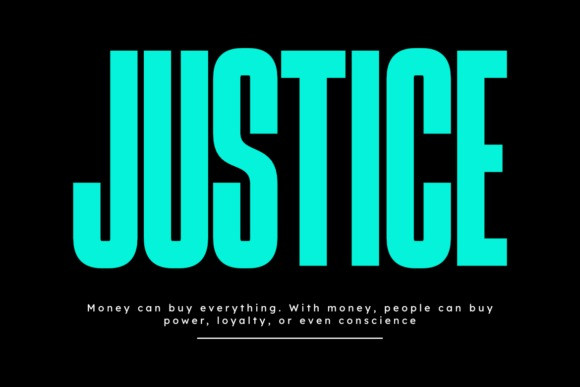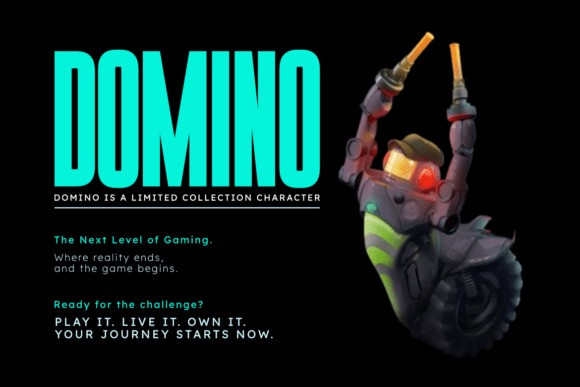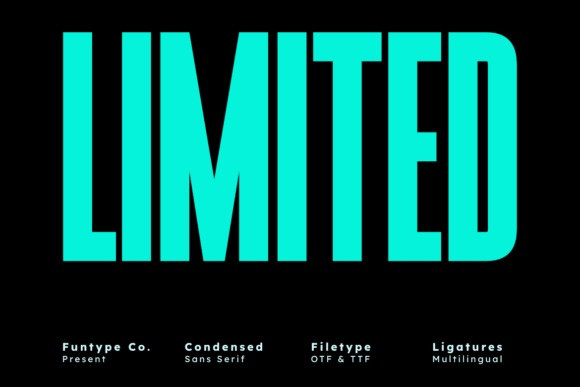
Limited Font
Limited Font is a bold and ultra-condensed sans serif font designed for impactful typography. With its tall structure and compact width, this font is perfect for strong headlines, modern posters, album covers, sports graphics, branding, and high-impact advertising. Its clean and confident design gives your visuals a striking and professional look.